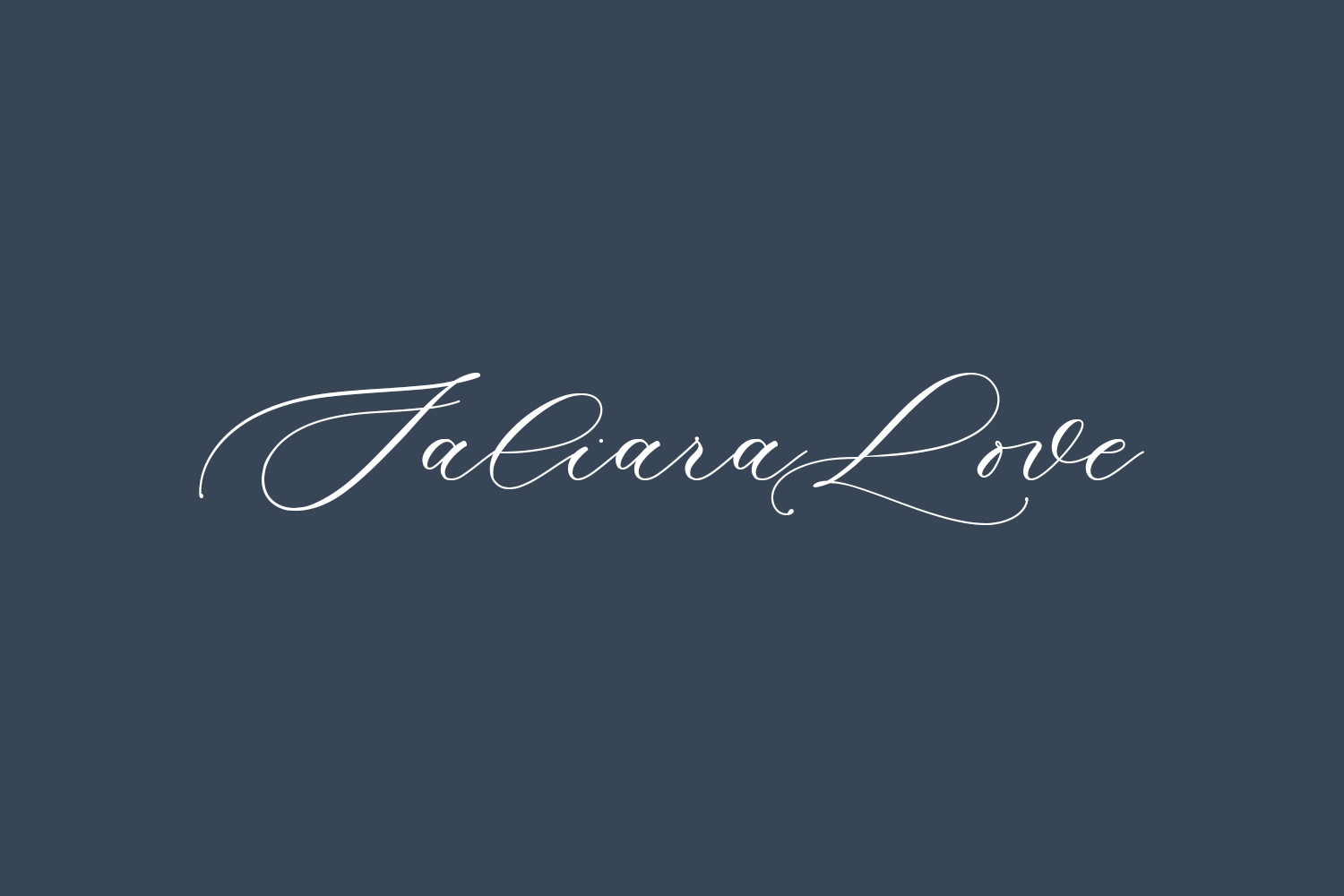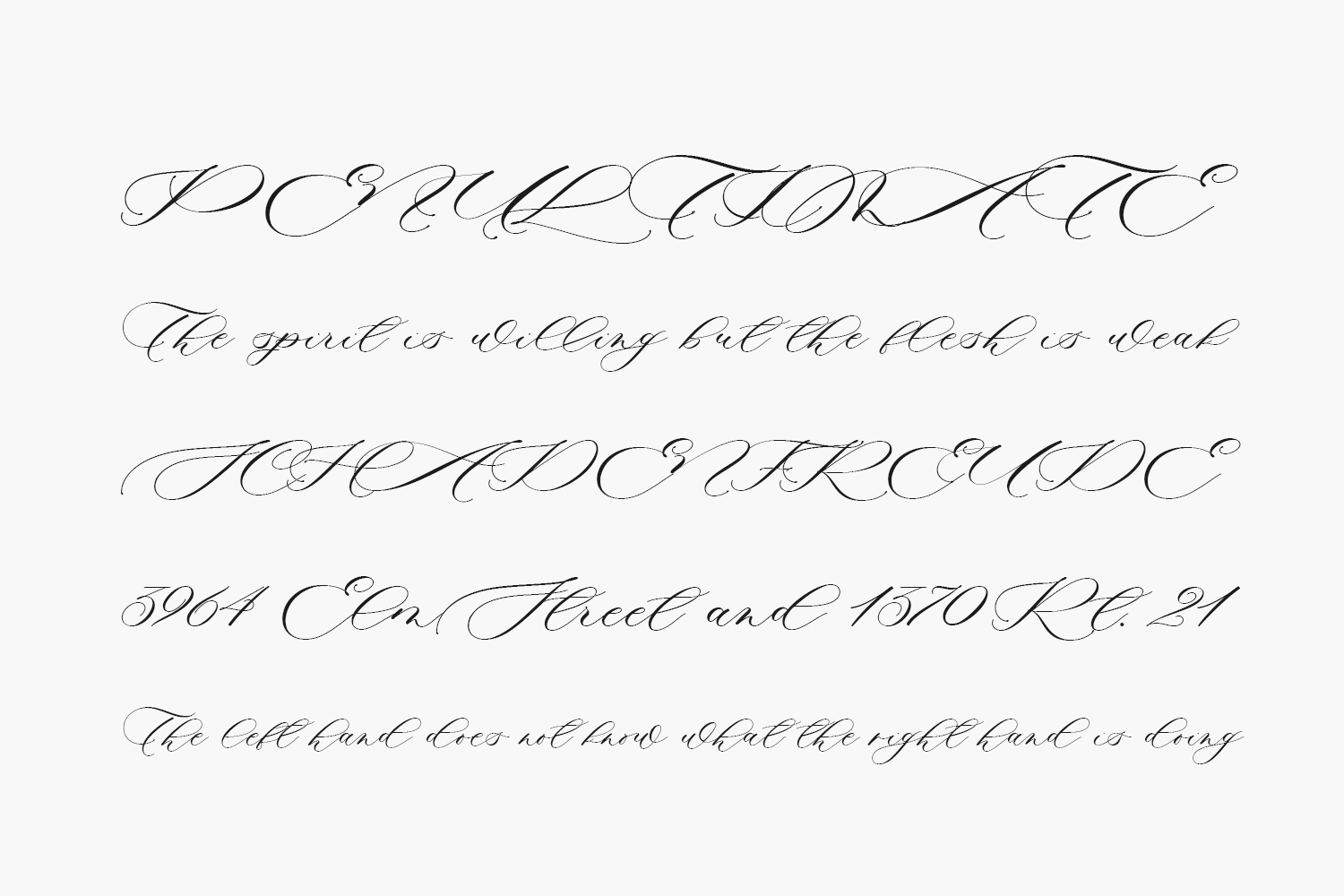
Discover the charm of Saliara Love Free Font, a delightful and elegant script font that exudes whimsy and romance. Its graceful characters dance gracefully along the baseline, bringing a touch of luxury to your design endeavors. Ideal for wall displays, wedding invitations, social media posts, greeting cards, stationery, and any project in need of a modern calligraphic touch. Saliara Love Free Font is free for personal use only. Please purchase the full version for commercial use.